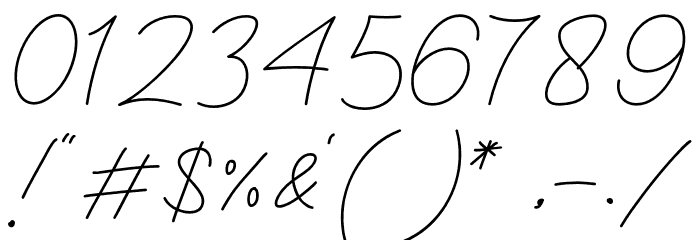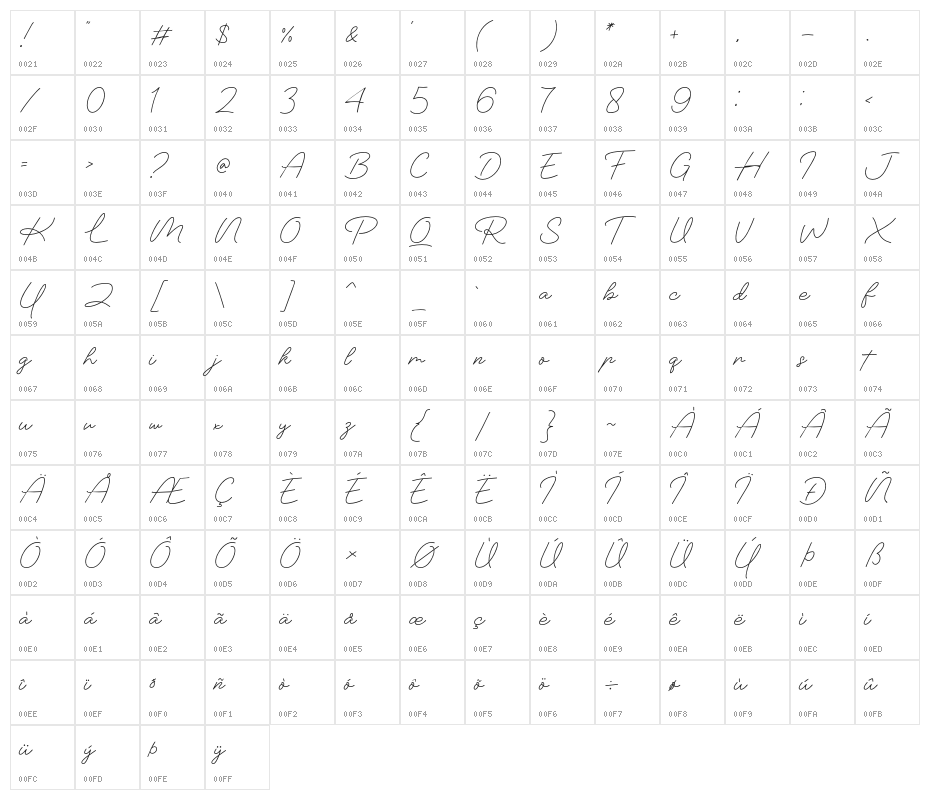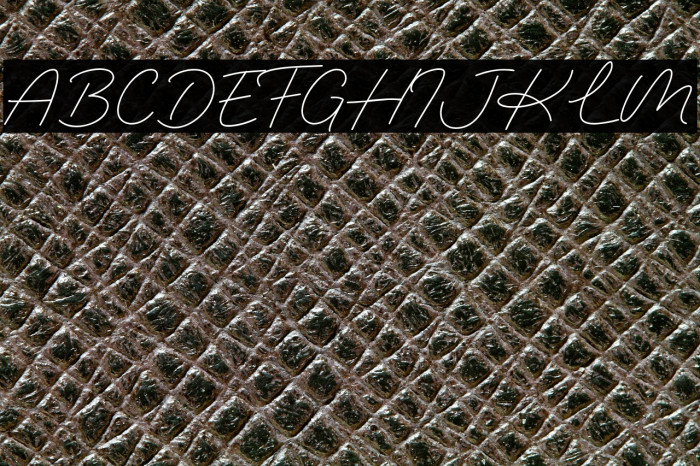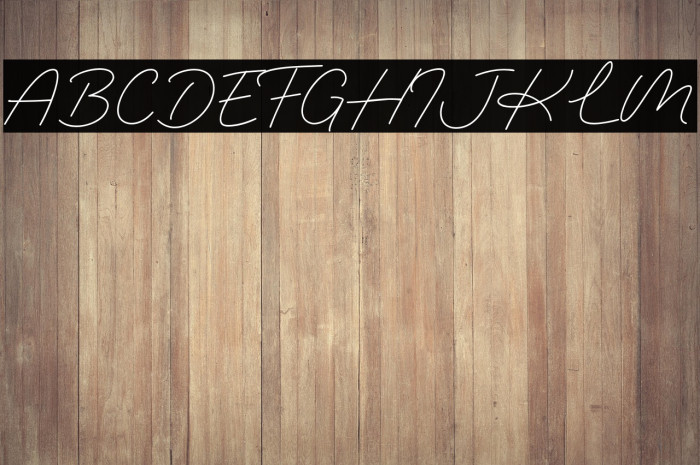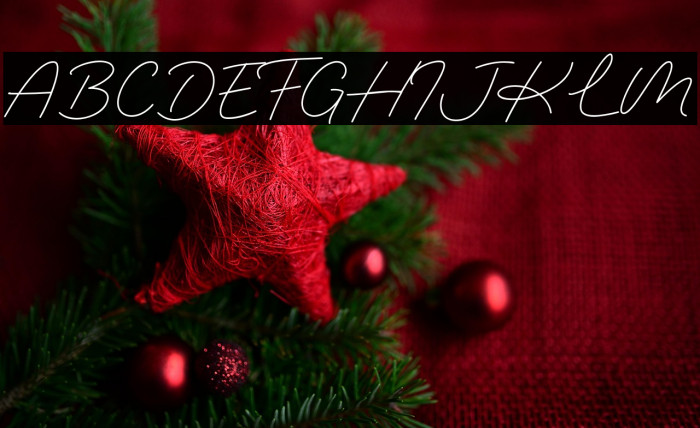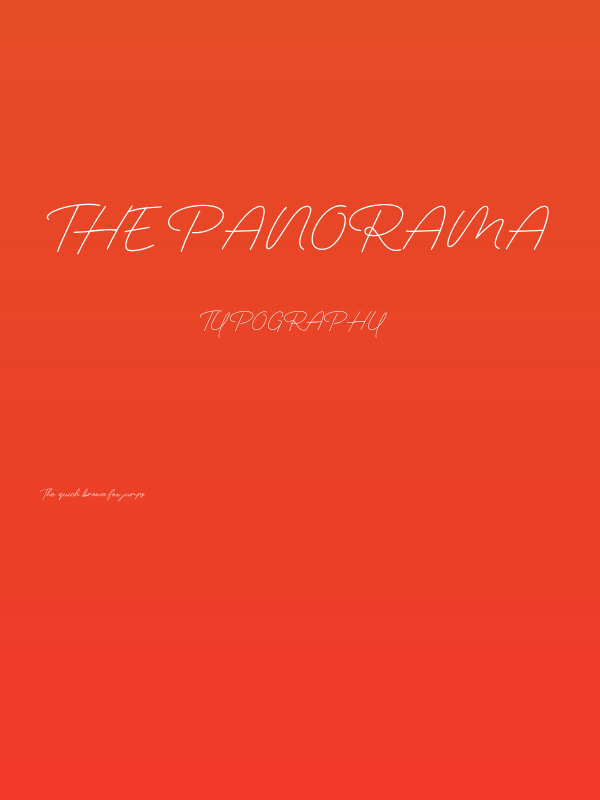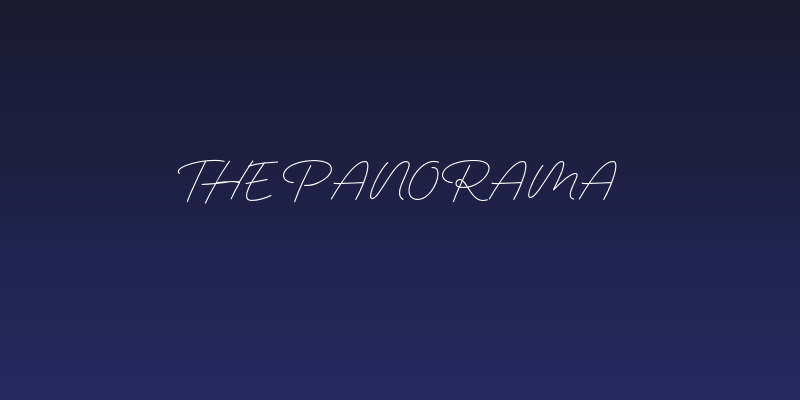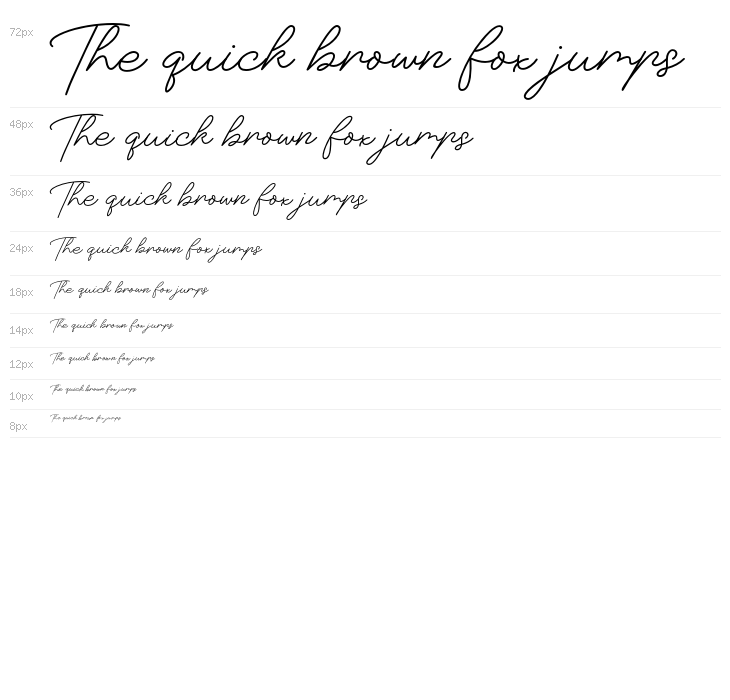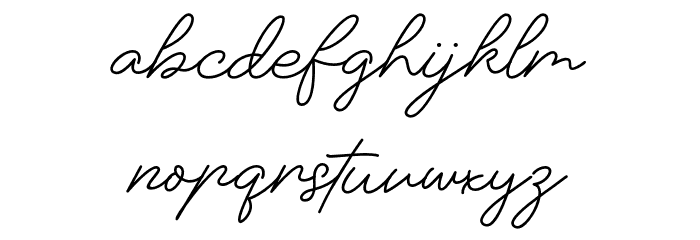
The Panorama Font
The Panorama Description
This elegant script font features a flowing, cursive style that mimics natural handwriting. The letters are connected with smooth, sweeping strokes, giving it a graceful and fluid appearance. The uppercase letters are slightly more elaborate, while the lowercase letters maintain a consistent rhythm. The numerals and special characters are designed to complement the letterforms, maintaining the same fluidity and elegance. This font is perfect for projects that require a personal touch, such as invitations, greeting cards, or branding materials. Its delicate lines and sophisticated style make it a versatile choice for various design needs.